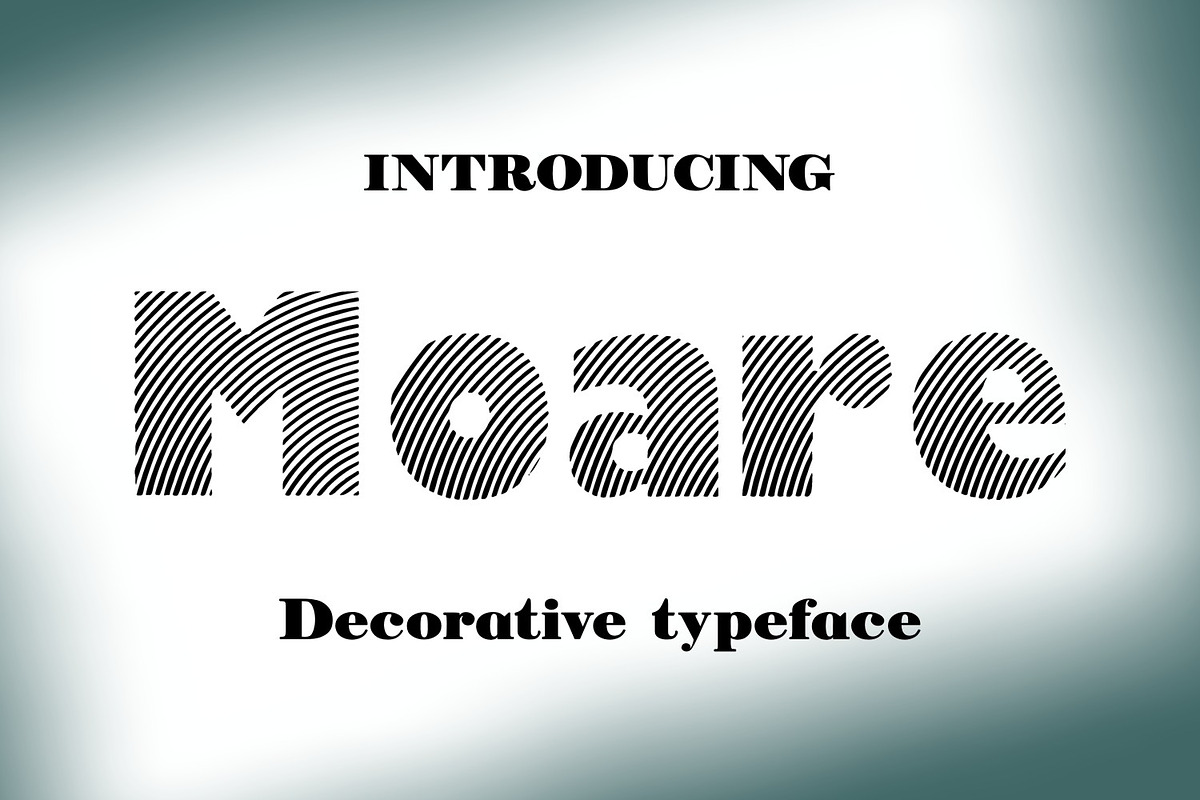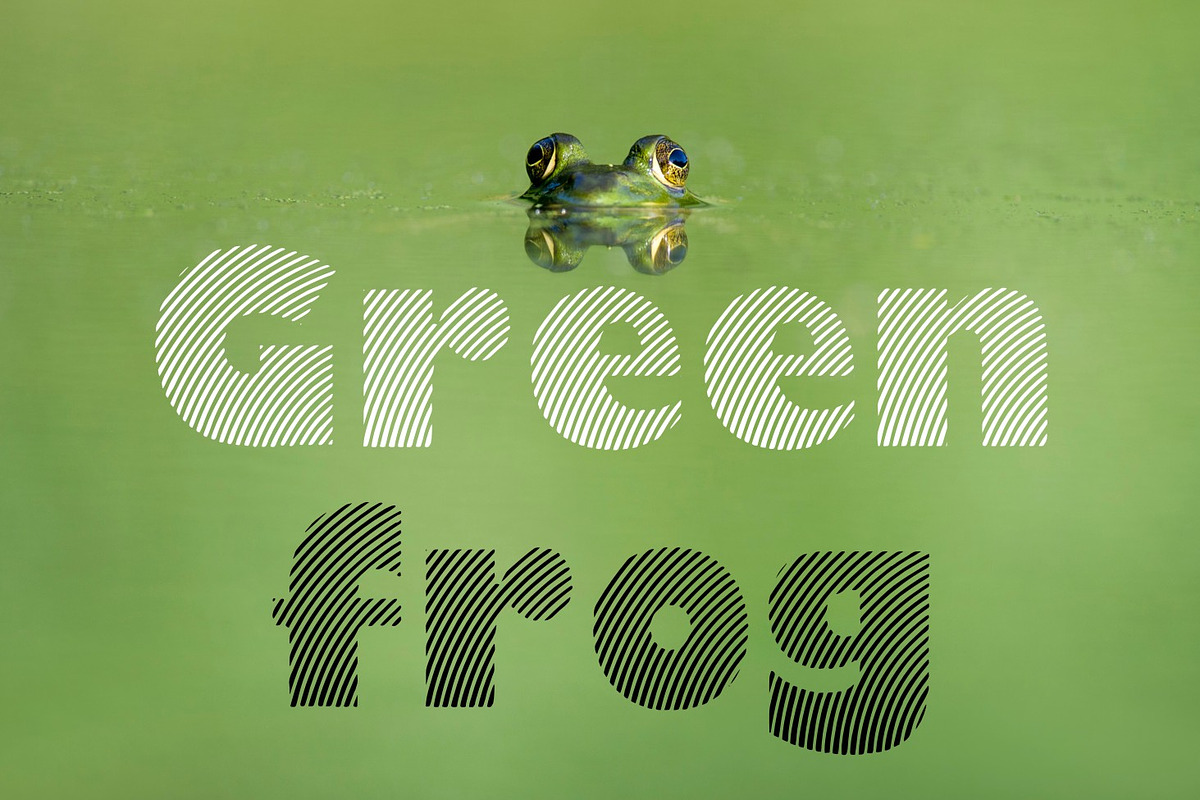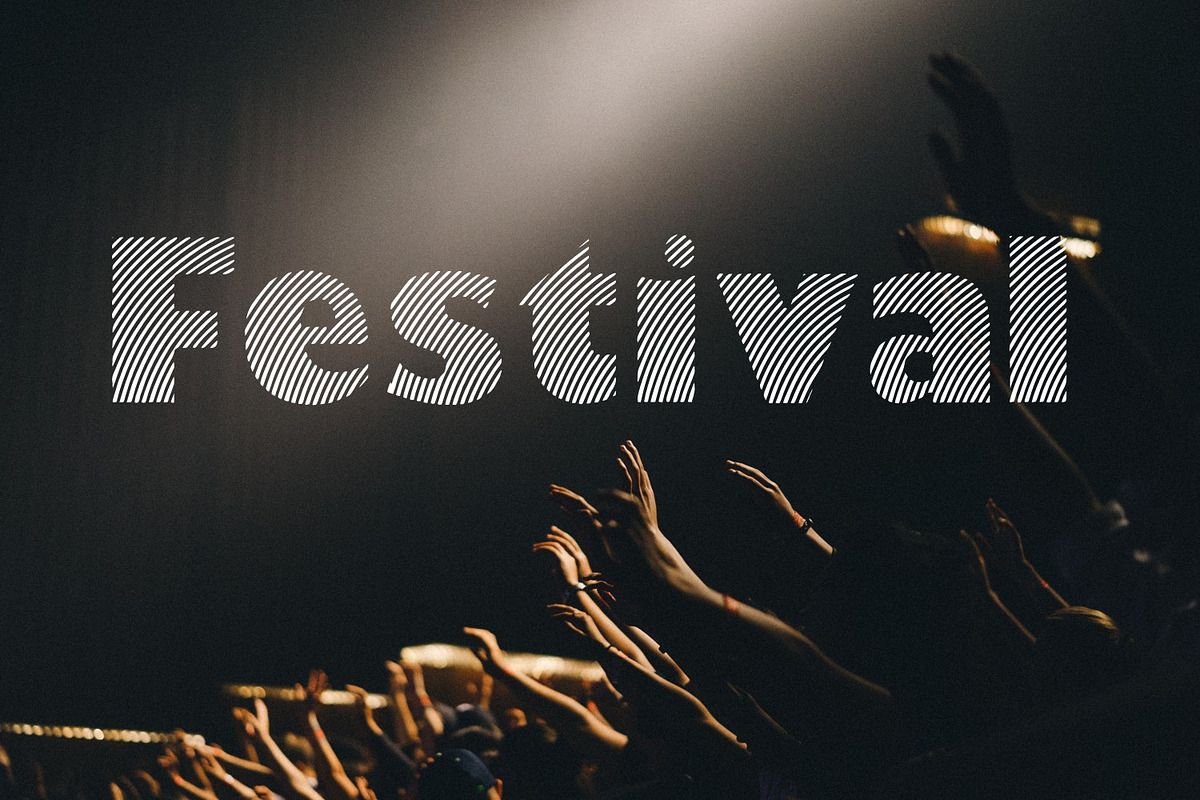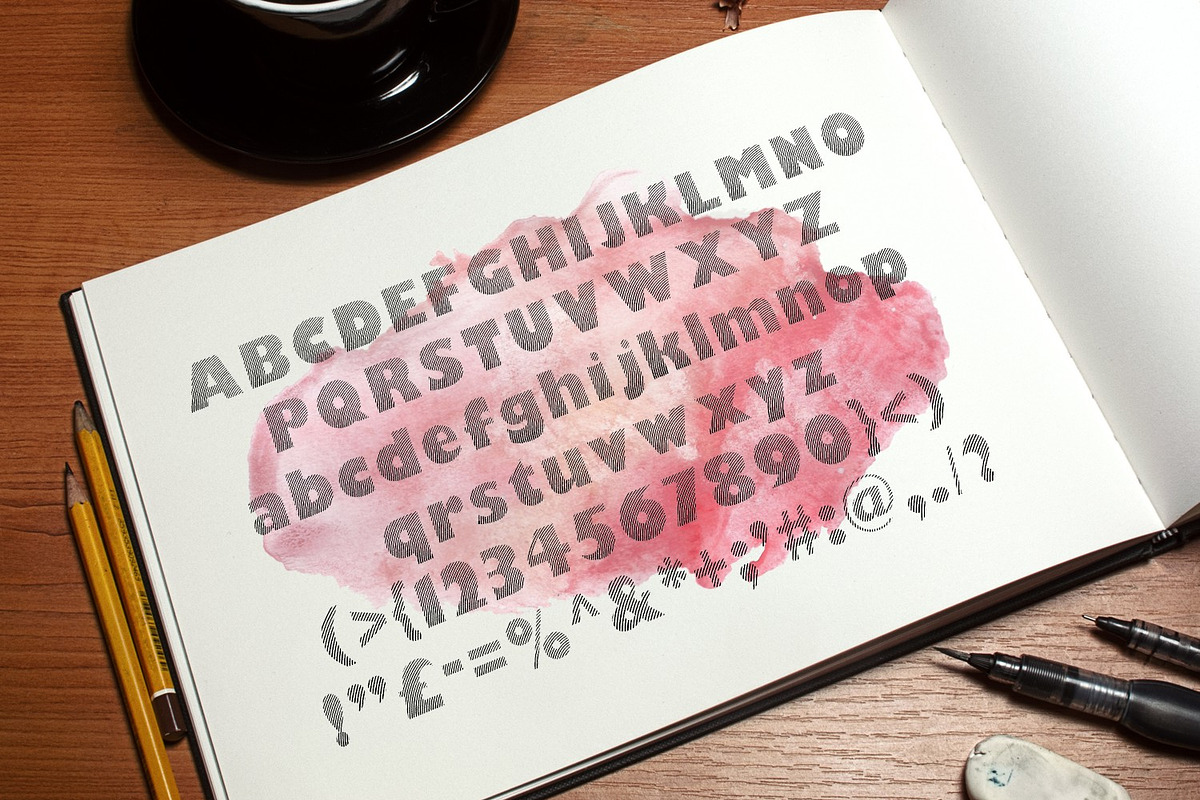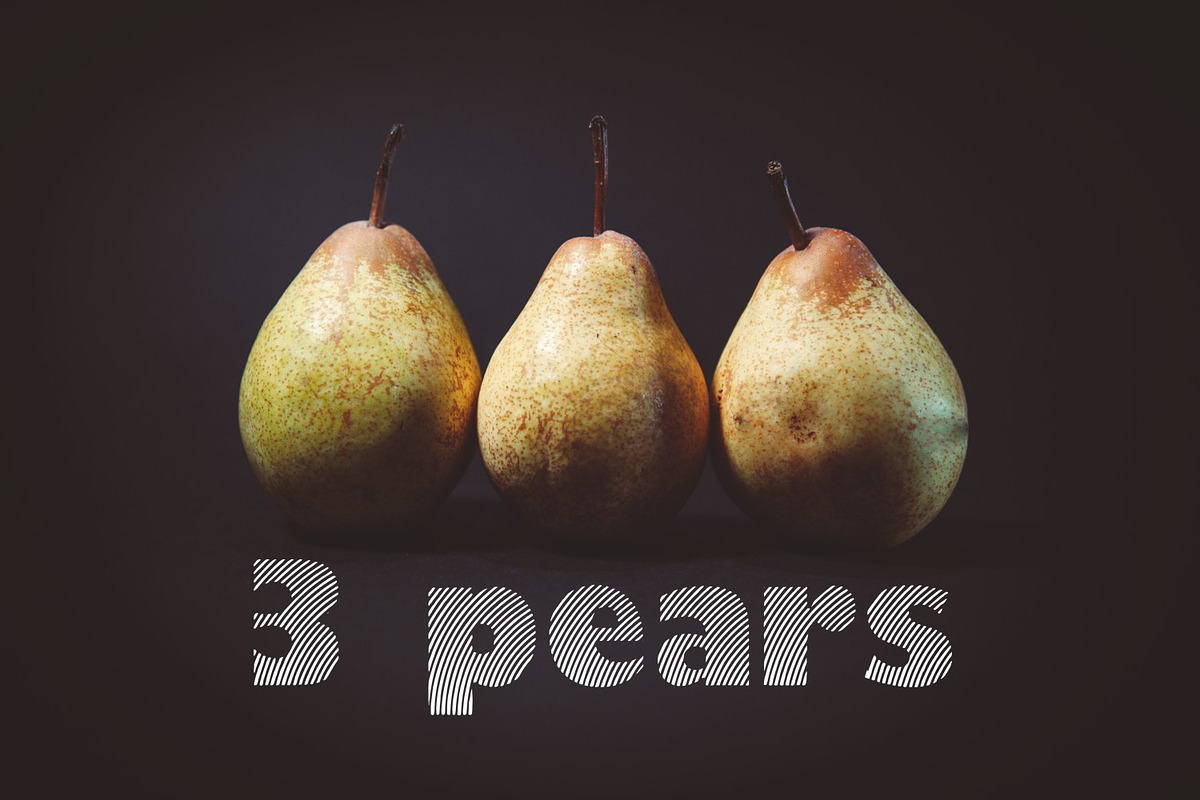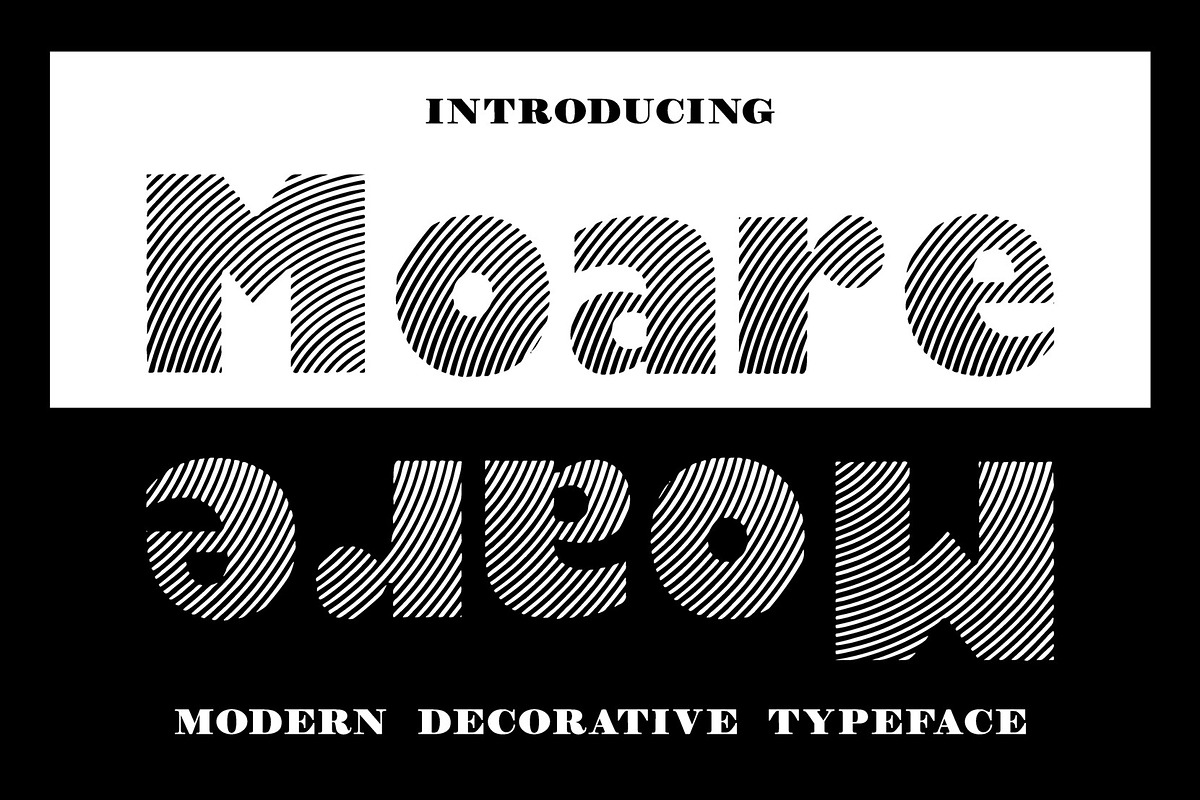
Moare Font
Introducing Moare hand crafted decorative font.
Multi purpose use as it has upper cases, lower cases, numbers and punctuations - as pictured above.
Some idea for usage: titling, signage, poster, flyers or t-shirts design, headlines, book covers and more!
Why Moare Font is worth a look
Moare Font by Digital Typeface Studio fits naturally into Branding, posters, packaging, typography.